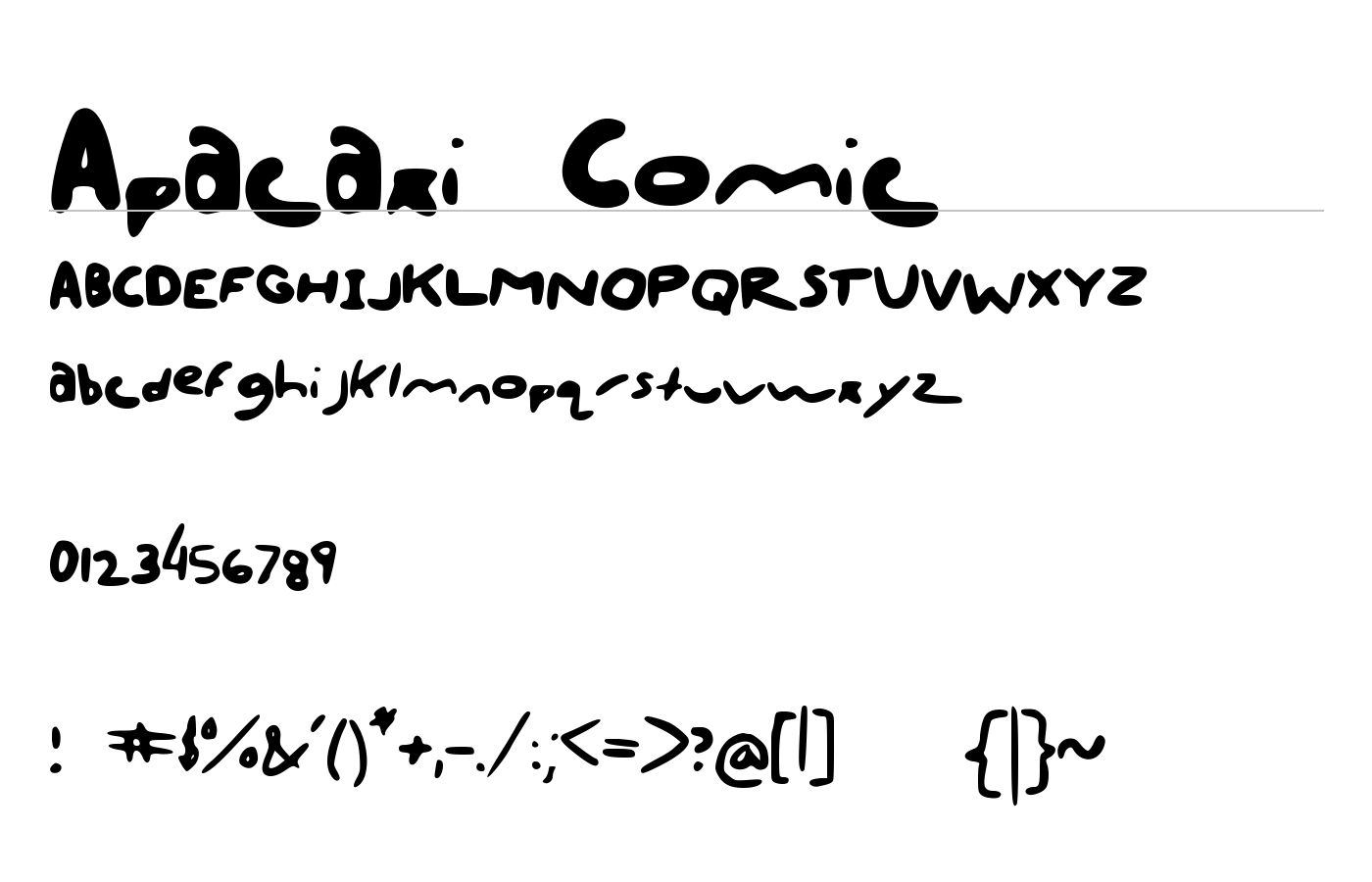
Apacaxi Comic is a playful and informal sans serif font with a bold, hand-drawn appearance that brings a fun and casual vibe. Its uneven strokes and quirky letter shapes give it a lively, approachable personality, making it ideal for children’s content, comics, or creative projects that benefit from a whimsical and friendly touch. This font works best in headlines, posters, and branding where an energetic and informal style is desired.